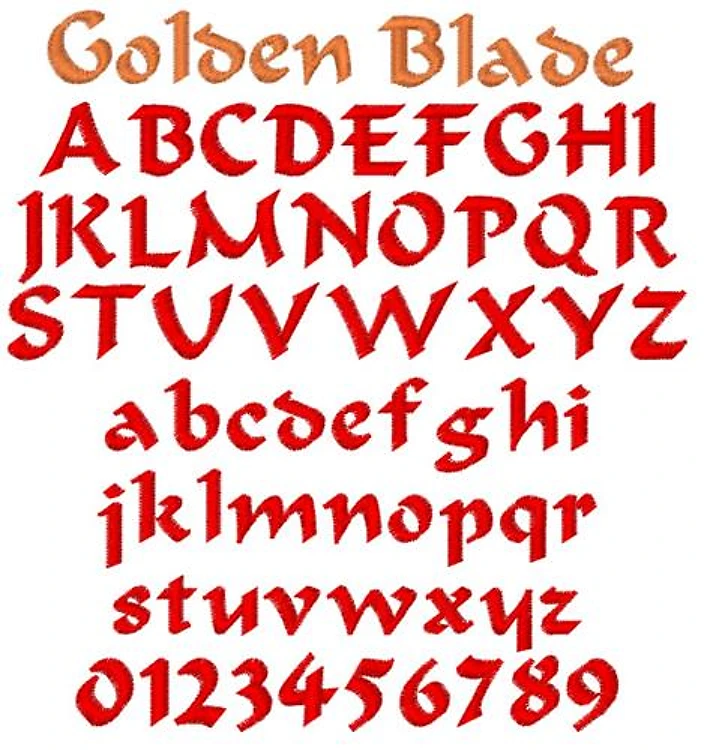
Internet Stitch is happy to present Golden Blade machine embroidery font which has Decorative machine embroidery font with fluid curves and pointed ends, ideal for vibrant purple designs on items like table linens. Available in ELP formats. included. If you would like to view more embroidery fonts and alphabets please search our embroidery fonts page.